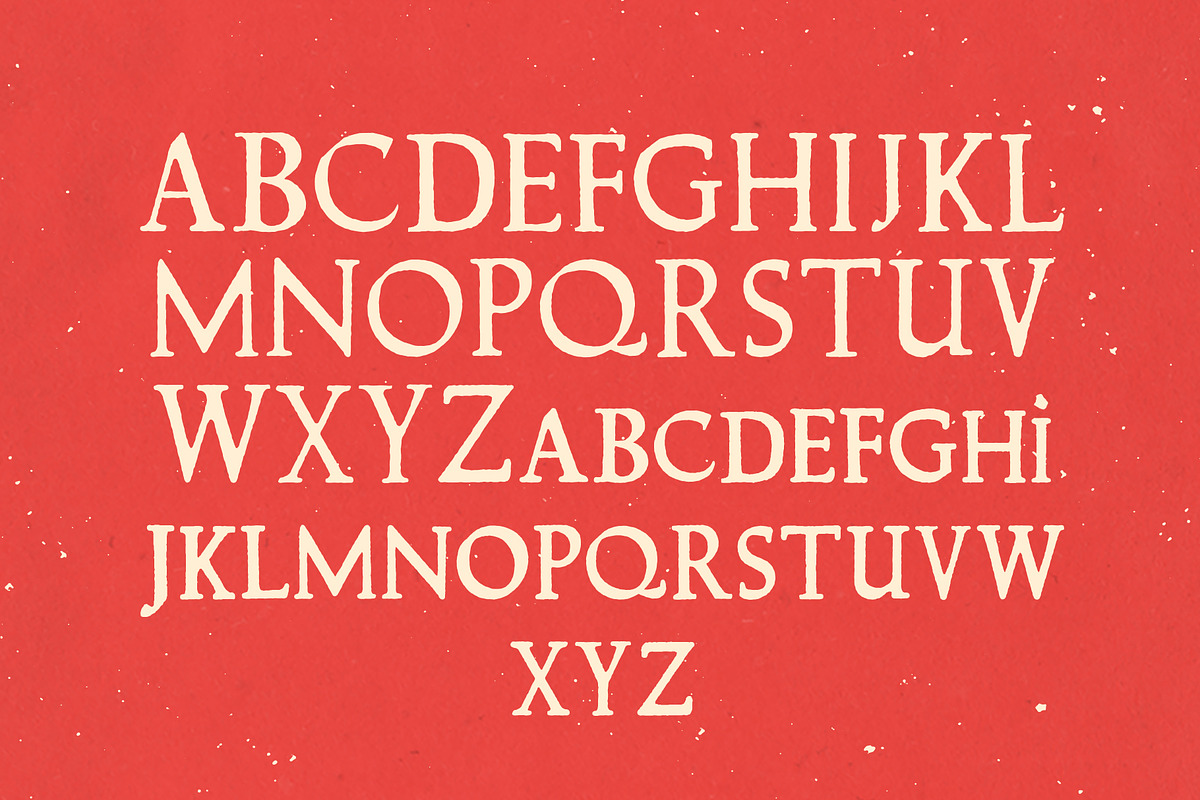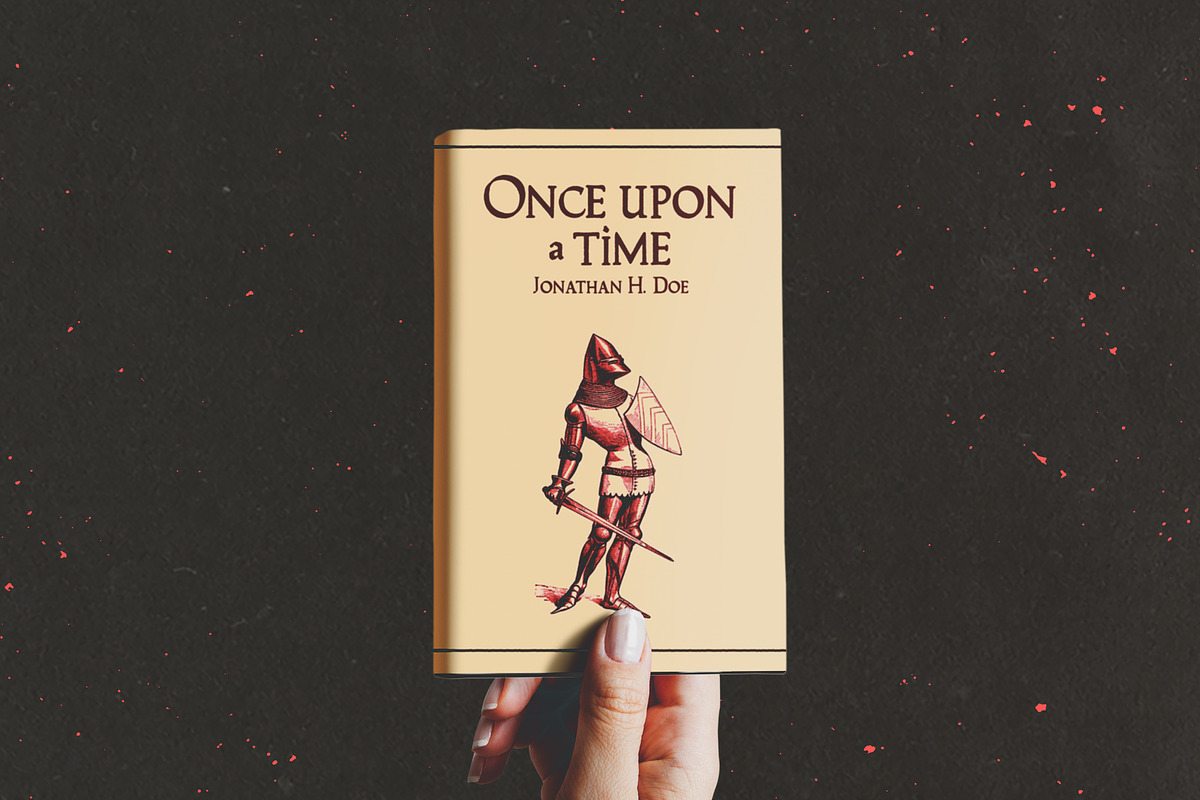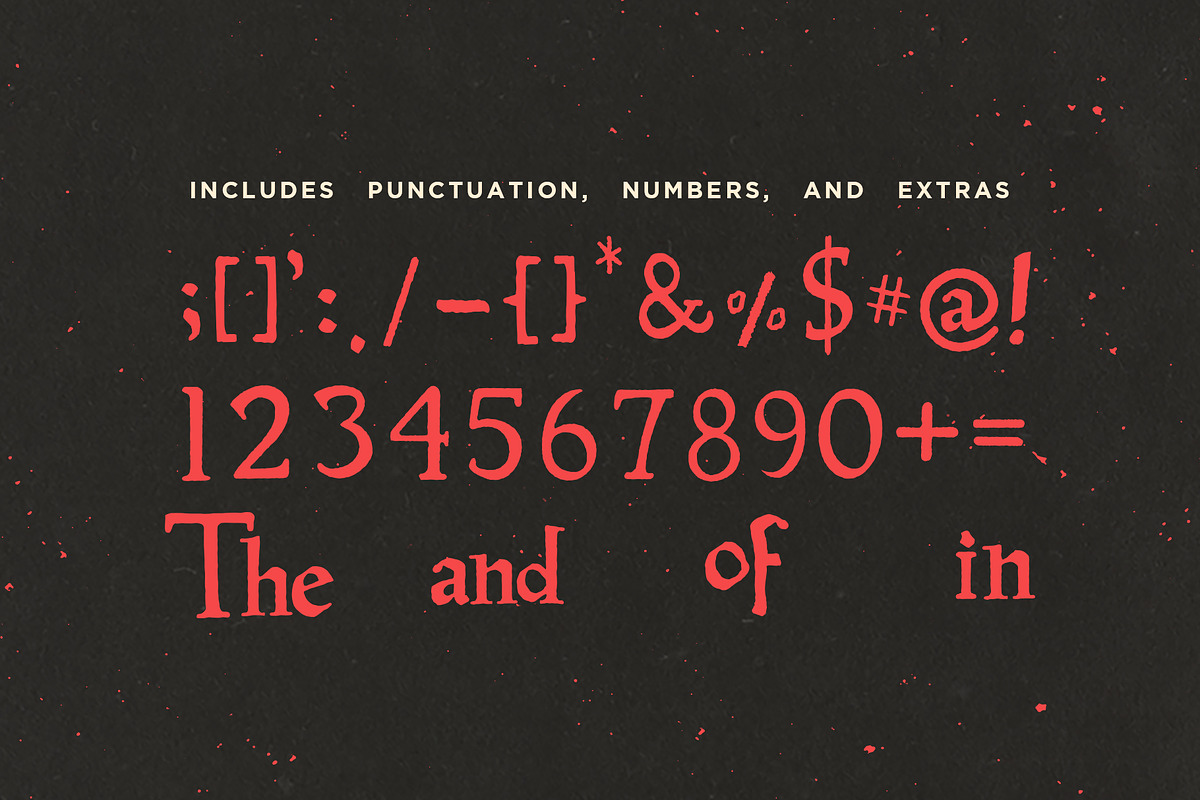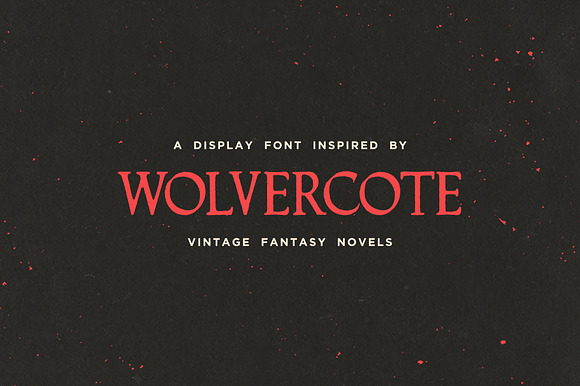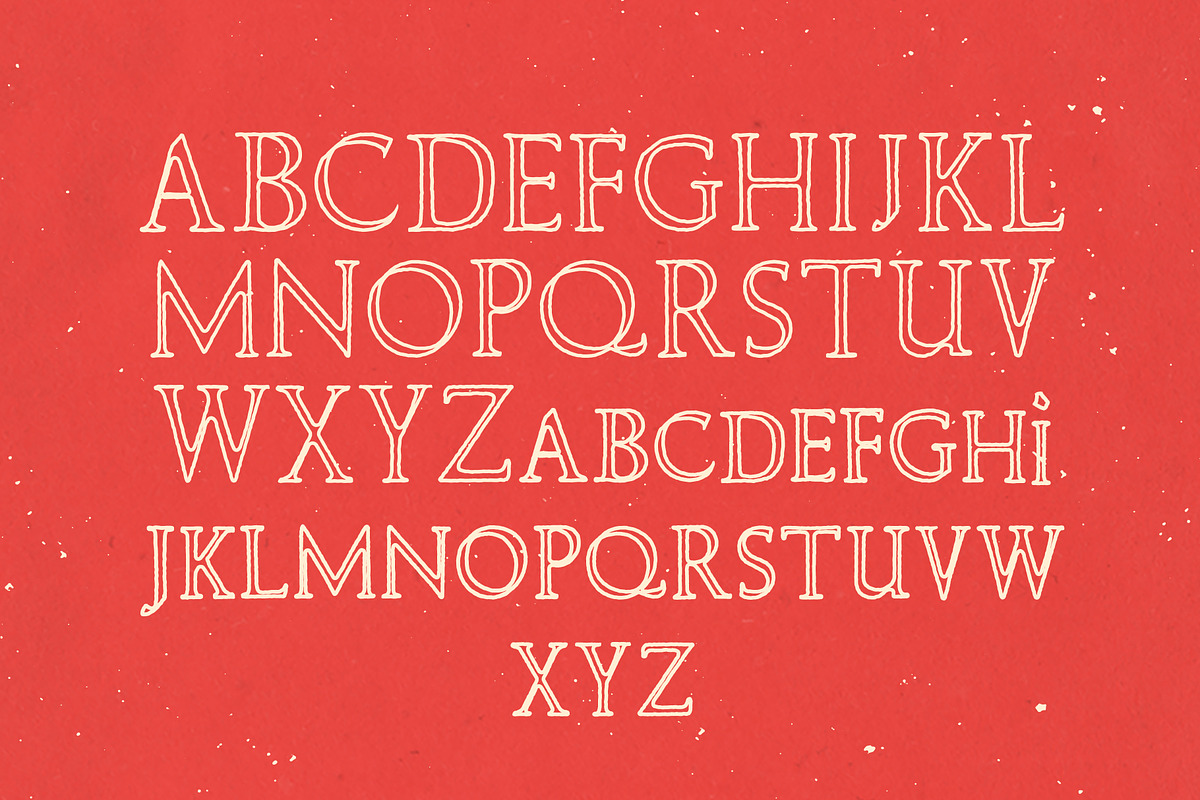
Wolvercote - A Fantasy Display Font
Wolvercote is a bold, elegant font birthed out of a trip to a second-hand book store.
Taking inspiration from the type on fantasy novels published between the 60s and 70s, this all-caps display font features unique letterforms in two distinct weights, including small caps, standard punctuation, and numbers.